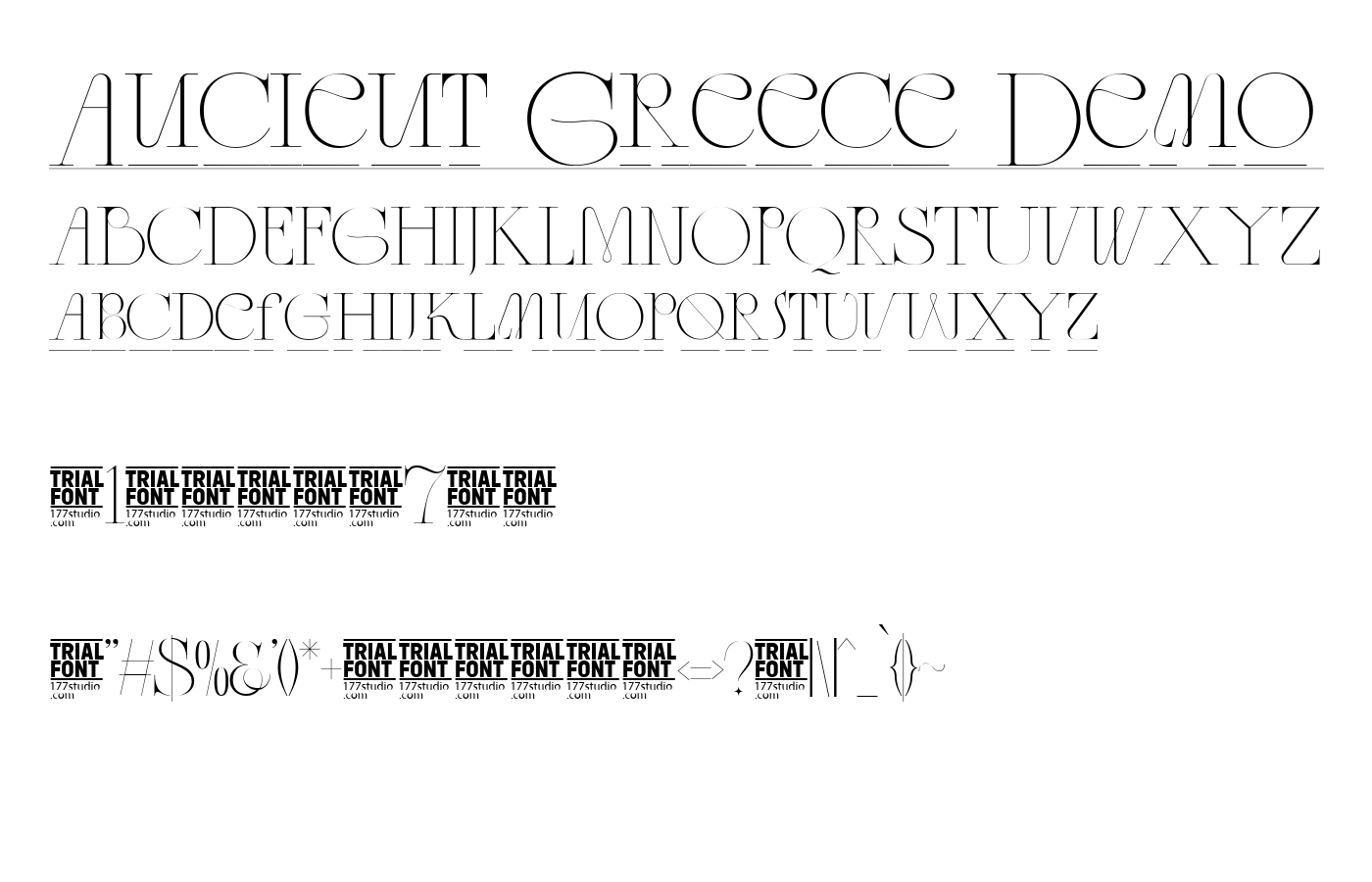
Ancient Greece Demo is an elegant, ultra-light serif font with high contrast between thin and thick strokes, featuring tall, narrow letterforms that evoke a refined, classical aesthetic. Its delicate, bracketed serifs and unique, artistic curves give it a sophisticated, vintage charm perfect for luxury branding, editorial headlines, and decorative designs that seek a stylish, timeless look. This font works best where elegance and a touch of historic beauty are desired, adding grace to fashion, invitations, and upscale packaging.
Ancient Greece Demo Font
About Ancient Greece Demo Font